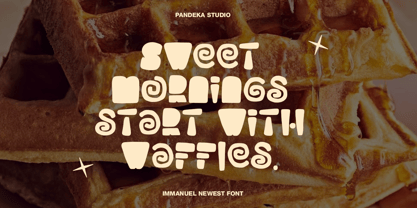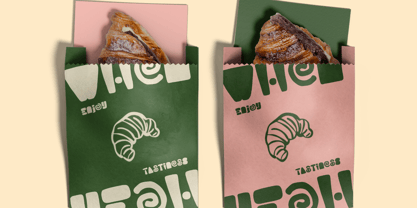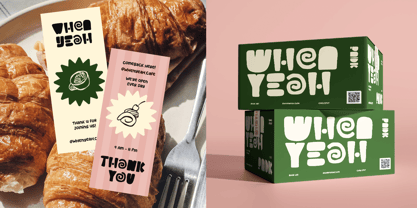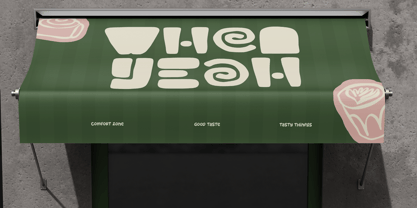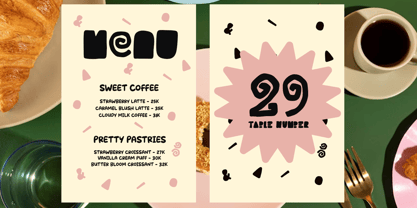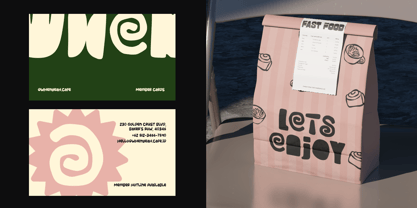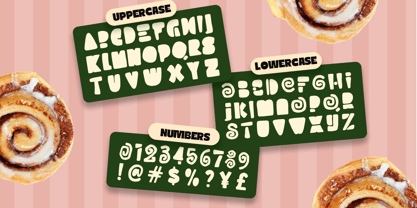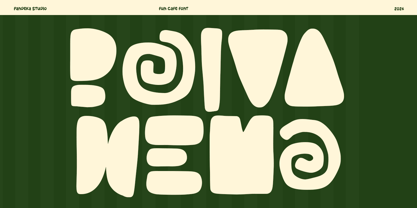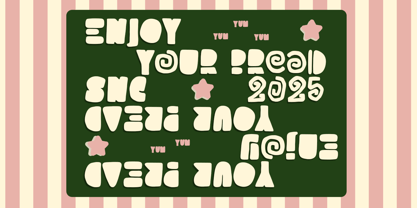
Bolva Hema
by Pandeka Studio
The Bolva Hema Font Family was designed by Sagara Nararya and published by Pandeka Studio. Bolva Hema contains 1 styles. More about this family
Bolva Hema is a fun and playful display font designed to bring warmth, charm, and personality into your designs. With its quirky shapes and friendly character, this typeface creates a welcoming and cheerful atmosphere, perfect for cafe branding, food visuals, and lifestyle designs that aim to feel approachable and lively.
This font comes in 1 style: Regular, carefully crafted to deliver strong visual impact while maintaining readability. Bolva Hema works beautifully for cafe logos, menus, food packaging, posters, signage, social media content, and branding projects that need a fun, casual, and eye-catching typographic style.
Designers: Sagara Nararya
Foundry: Pandeka Studio